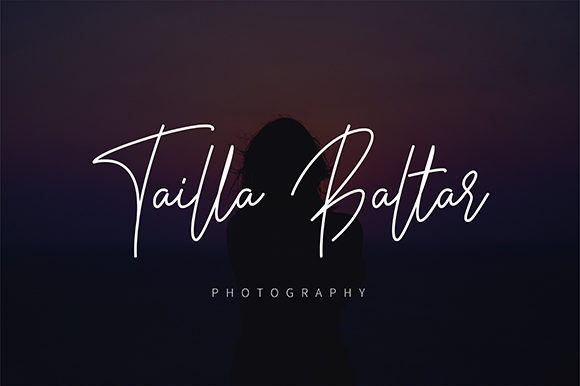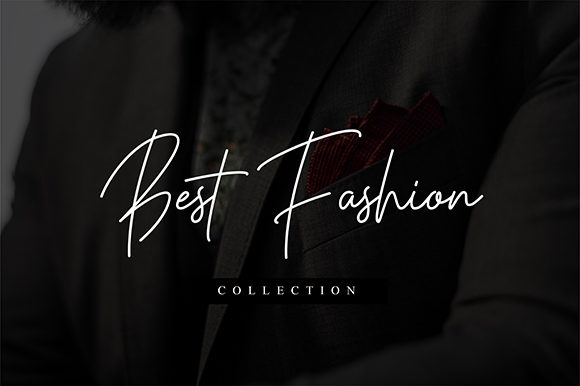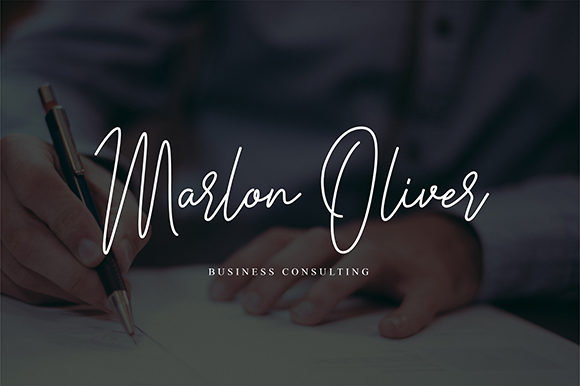
Introduction to Parachute Signature Font
Parachute Signature is a gorgeous script font.
It maintains its classy calligraphic influences while feeling contemporary and fresh This versatility will appeal to a wide range of crafty ideas, from letterheads and titles, to stationery.